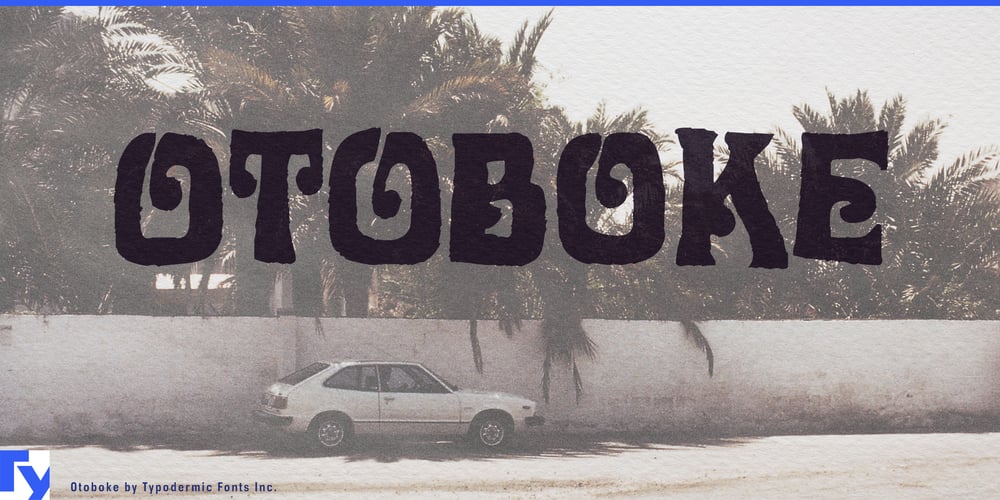
Otoboke Font Family was designed by Ray Larabie and published by Typodermic. Otoboke contains 1 styles and family package options. Step into the kaleidoscopic world of Otoboke, a typeface that pushes the boundaries of visual perception. This extraordinary creation is a psychedelic journey through typography, where every glyph is a portal to another dimension.Otoboke’s mind-bending letterforms are a testament to the art of typographic exploration. Each character is a unique creation, with ingenious letter pair combinations that transform even repeated letters into distinct visual experiences. The typeface’s crumbly texture adds an organic, almost sentient quality to the letters, as if they’re pulsating with their own cosmic energy. Drawing inspiration from Louis Minott’s iconic 1965 creation, Davida, Otoboke takes the expressive spirit of the psychedelic era and catapults it into the 21st century. It’s not just a nod to the past—it’s a bold reimagining that speaks to contemporary designers seeking to make a powerful visual statement.In headlines, posters, and album covers, Otoboke truly comes alive. Its intricate details and unconventional forms demand attention, making it perfect for projects that aim to captivate and mesmerize. From music festivals to avant-garde art exhibitions, Otoboke provides the visual vocabulary to express the inexpressible. Surprisingly versatile, Otoboke supports a vast array of Latin-based European writing systems. From Afrikaans to Zulu, this typeface allows your message to transcend linguistic boundaries while maintaining its otherworldly appeal. It’s a global passport to typographic adventure, ensuring your designs resonate across cultures with the same intensity.Otoboke is for designers who dare to dream, who seek to challenge perceptions and create unforgettable visual moments. Get Otoboke today and embark on a typographic trip that will take your designs to uncharted realms of creativity.